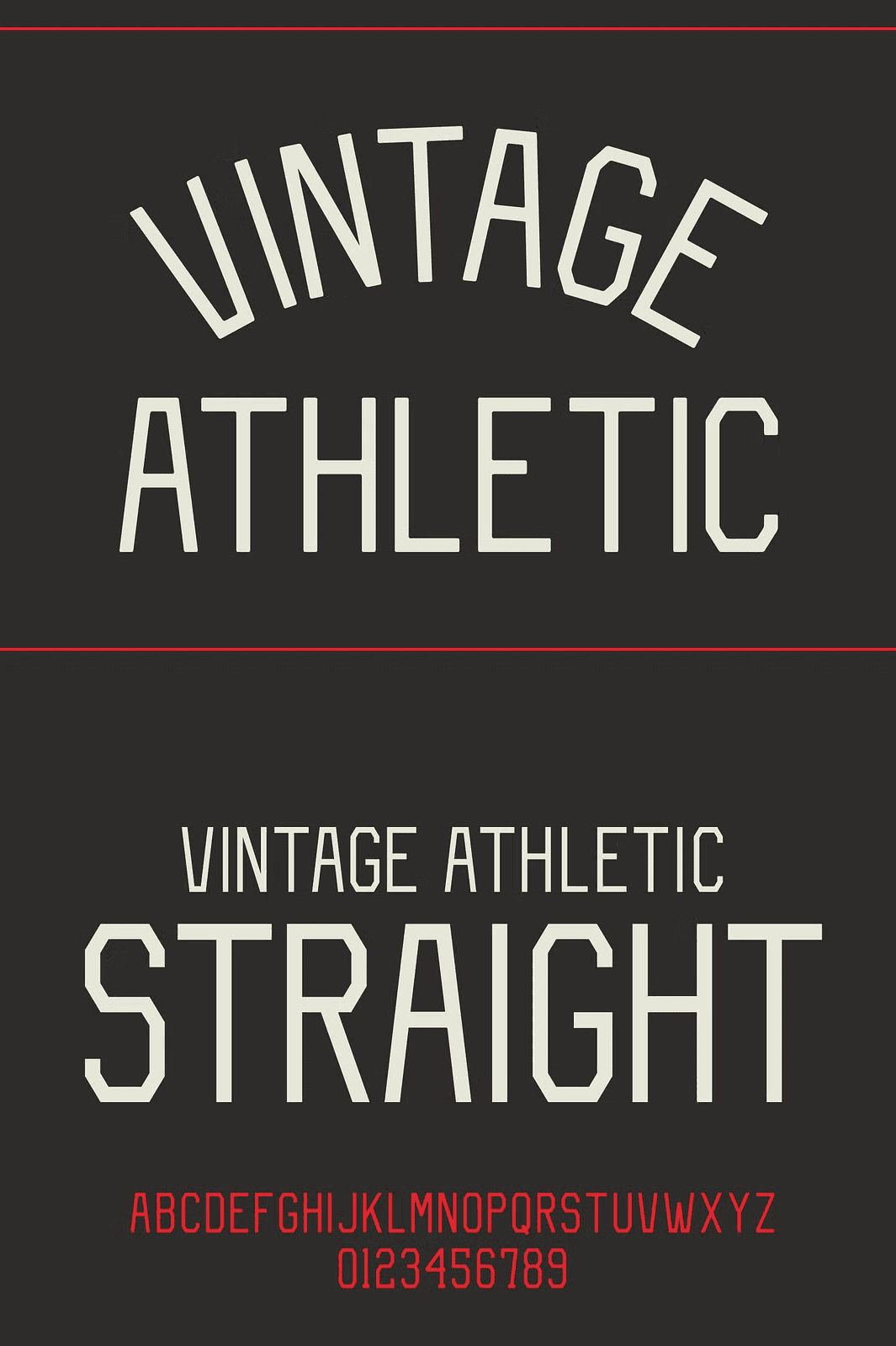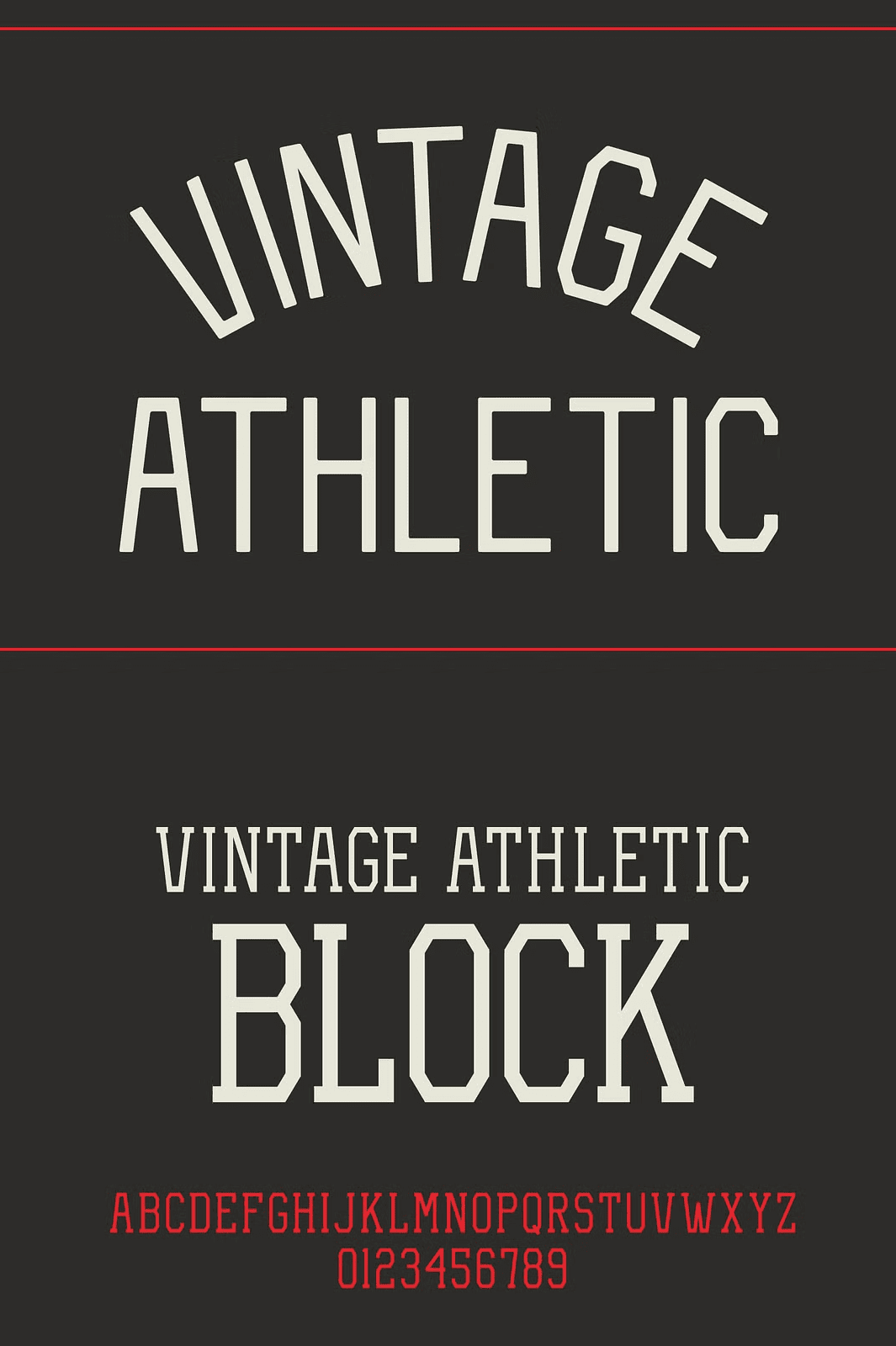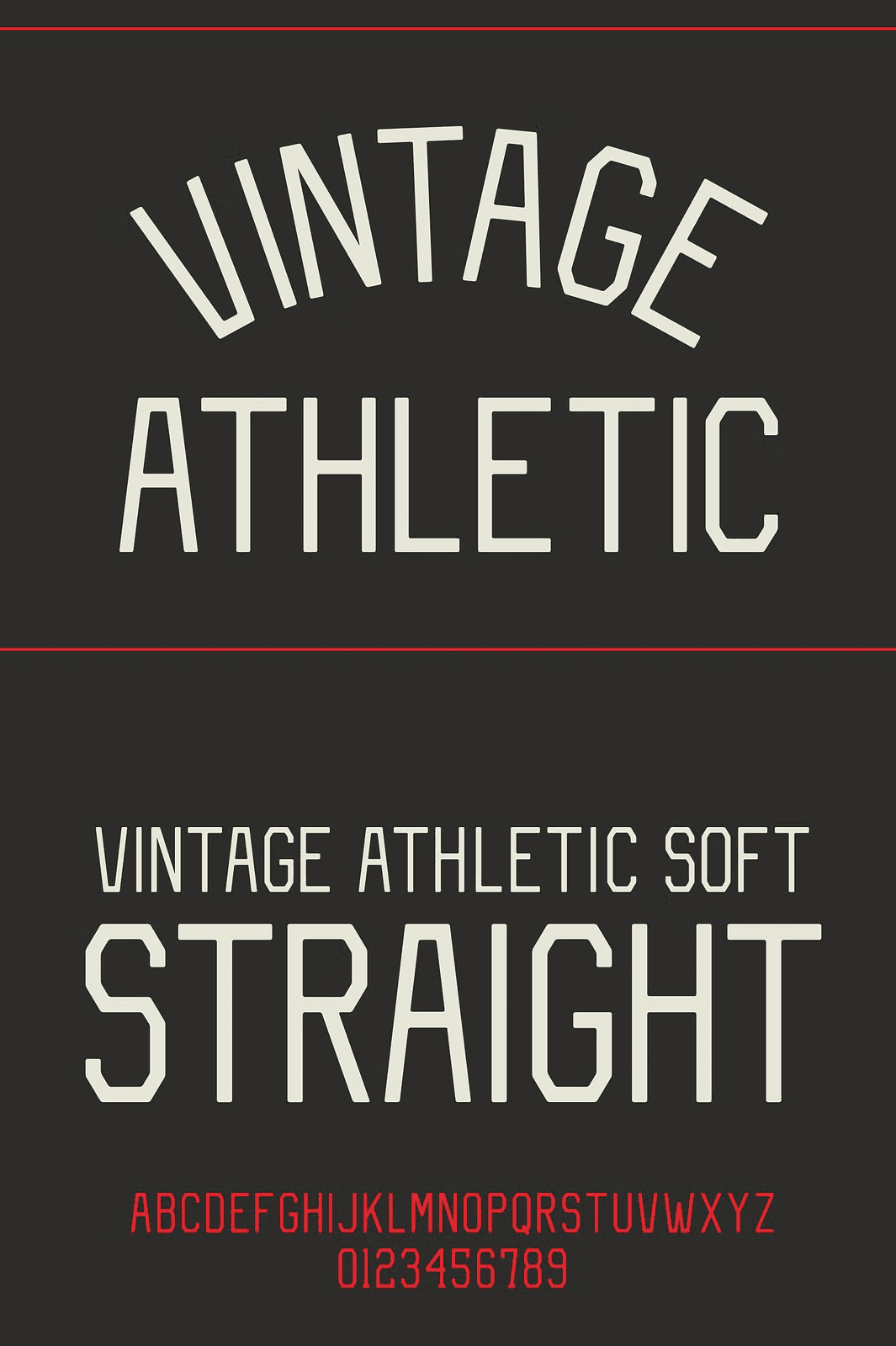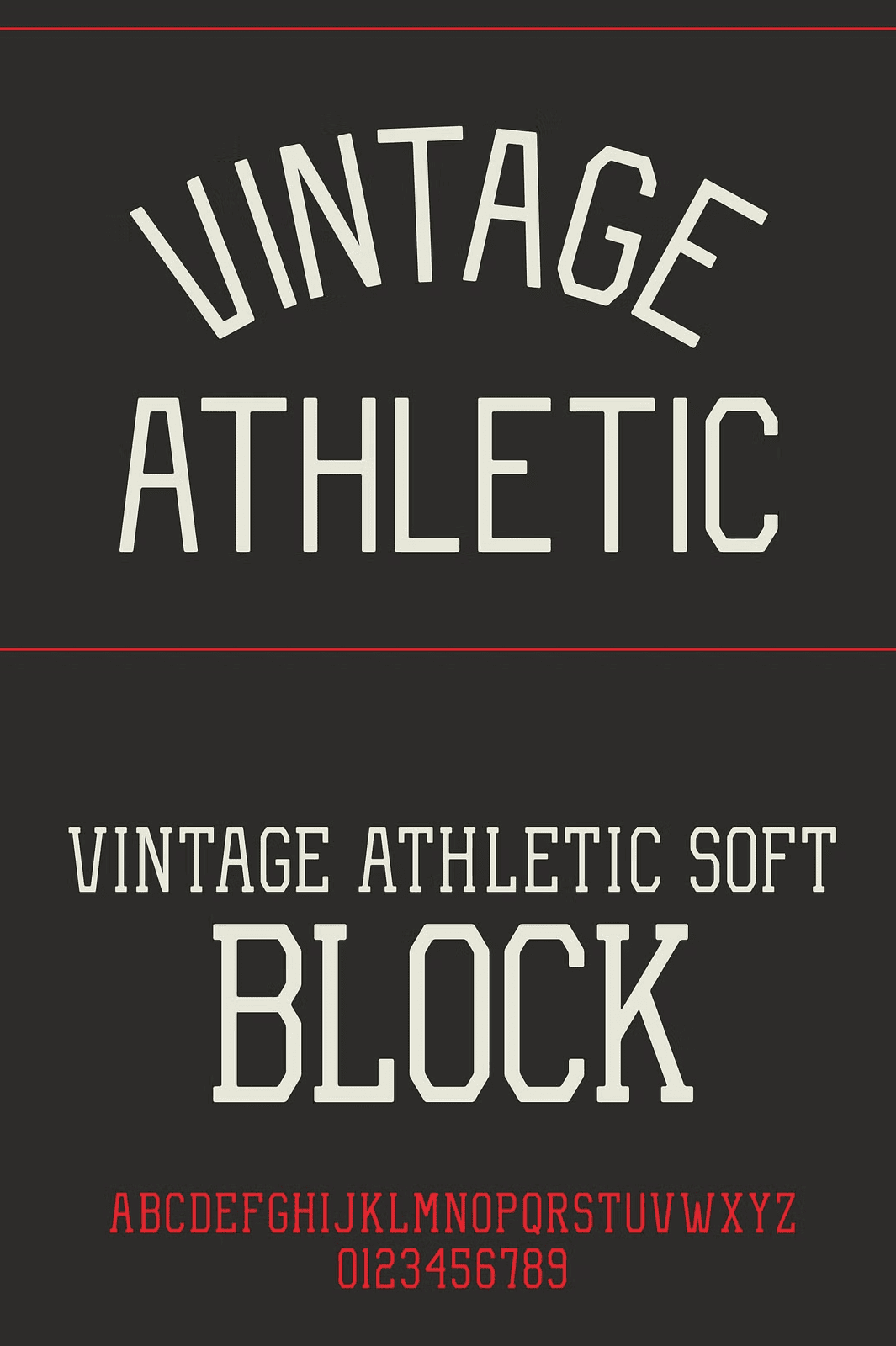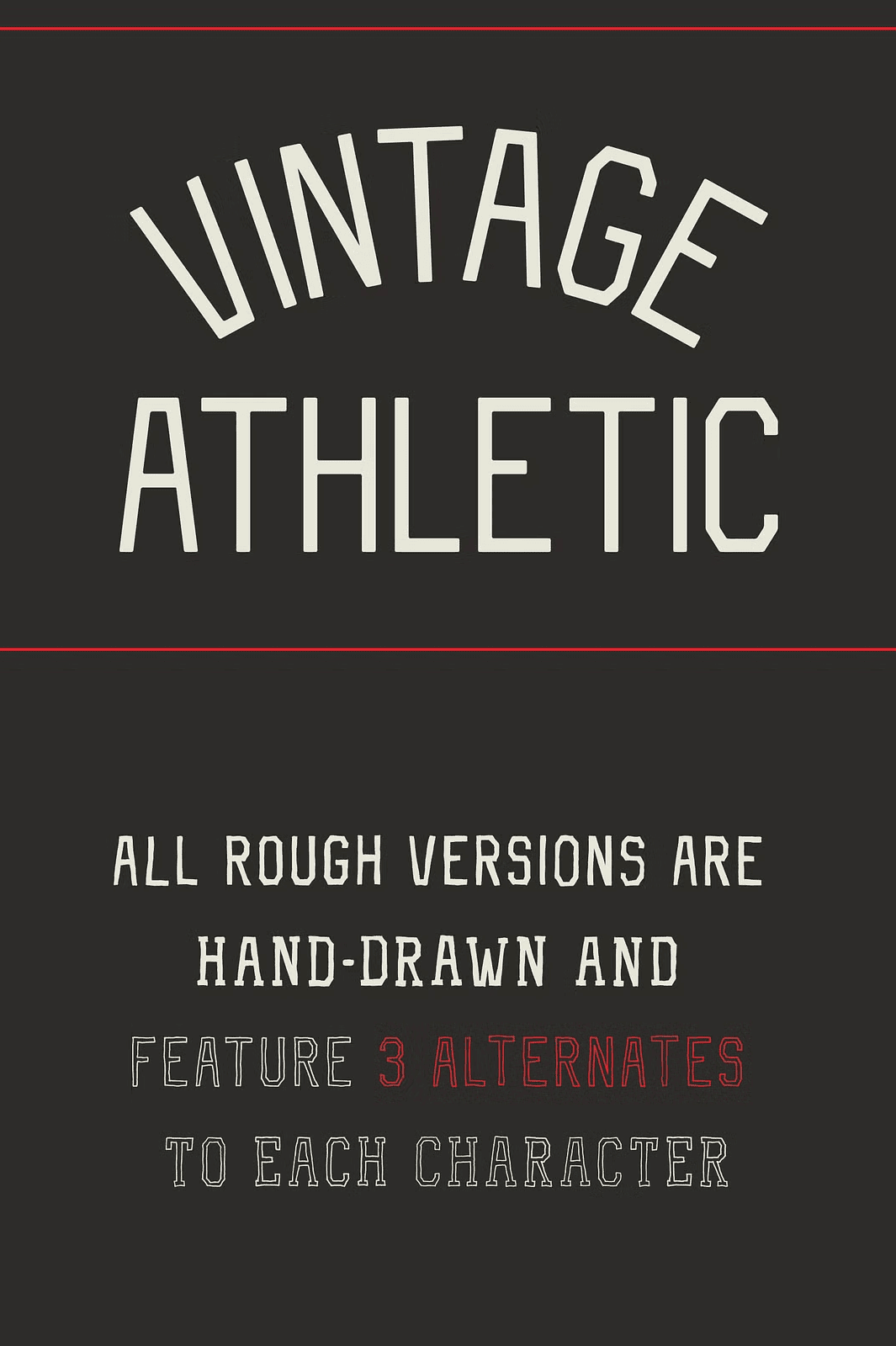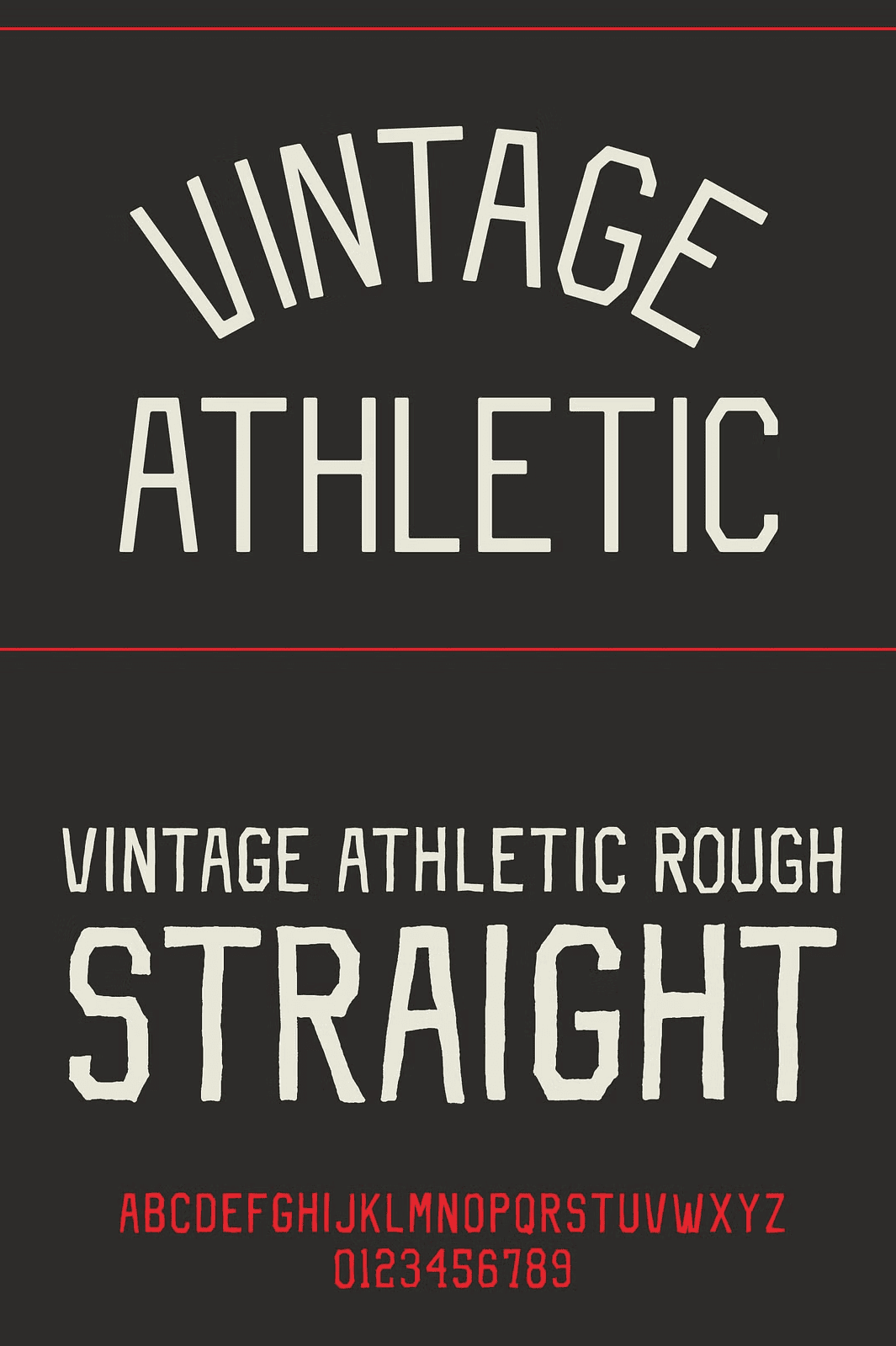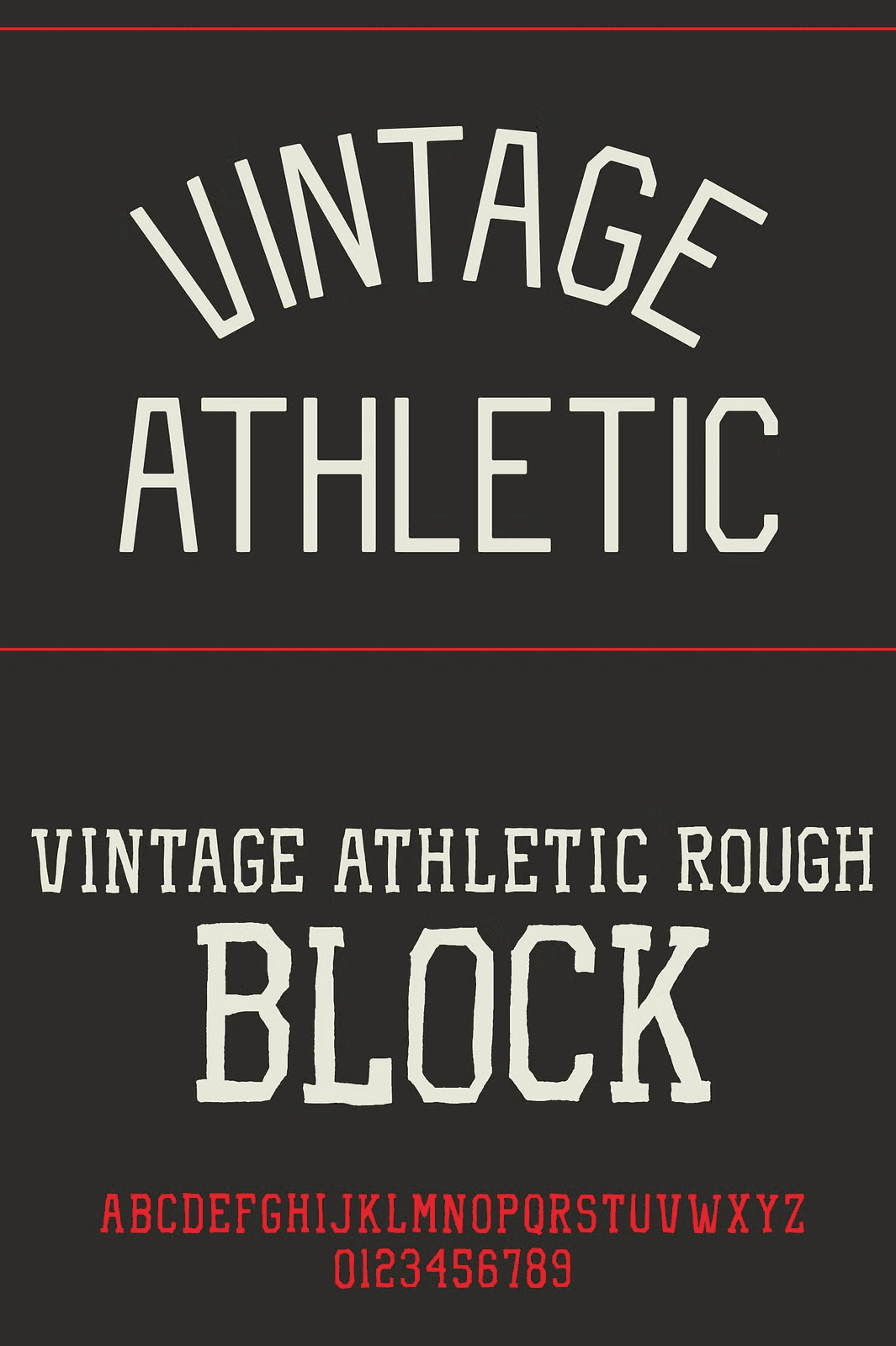
Vintage Athletic – Block Typeface
Unleash the raw energy of bygone eras with Vintage Athletic Typeface—a dynamic, hand-drawn font family engineered for creators who demand authenticity, strength, and visual impact. This comprehensive typeface delivers 8 distinct fonts that work in perfect harmony, giving you endless options to craft bold, nostalgic, and powerful athletic designs. Whether you’re designing for sports branding, vintage posters, retro logos, or lifestyle campaigns, Vintage Athletic delivers the grit, character, and personality of true classic sport typography.
Eight Fonts, Infinite Creative Possibilities
At the heart of this typeface family are four foundational styles, each available in two unique variations—**Straight** and **Block**—and extended further into **Soft**, **Rough**, and **Outline** versions. This layered structure transforms a simple font into a creative powerhouse:
• Vintage Athletic Straight – Clean, sharp sans-serif styling with no serifs, ideal for clarity and modern retro contrast.
• Vintage Athletic Block – The serif complement, adding strong visual weight and classic print-style authority.
• Vintage Athletic Soft Straight – A gentler, more refined version with subtle curves and softened edges for expressive elegance.
• Vintage Athletic Soft Block – The soft serif version, perfect for campaigns that balance tradition and approachability.
• Vintage Athletic Rough Straight – Hand-drawn imperfections give this version unmatched texture and authenticity.
• Vintage Athletic Rough Block – Rough serifs and layered strokes amplify the vintage, hand-stamped feel.
• Vintage Athletic Rough Outline Straight – A bold, open-line version for high-impact silhouettes and poster designs.
• Vintage Athletic Rough Outline Block – The most dramatic option, combining roughness with strong outline presence for maximum visual punch.
Each ‘Rough’ version includes three unique character variants per letter, meaning no two text blocks will look identical unless you choose otherwise. This feature gives you full control over randomness, texture, and artistic expression—essential for stand-out branding and editorial work.
Designed for Professional Workflow and Real-World Use
Supports multilingual scripts, including Latin, Cyrillic, and Greek, so you can create campaigns for global audiences without compromise. Whether you’re designing a basketball jersey logo, a boxing tournament poster, a vintage gym branding kit, or a retro fashion label, Vintage Athletic delivers consistent, stunning results at every scale—from small badges to giant banners.
Elevate Your Brand with Authentic Retro Energy
This font isn’t just a tool—it’s a mindset. Vintage Athletic Typeface brings the spirit of 20th-century sports posters to your digital workspace. Use it to define a brand’s identity with confidence and nostalgia. Ideal for:
• Sports team logos with vintage flair
• Retro athletic apparel and merch branding
• Event posters for marathons, tournaments, and boxing matches
• Streetwear and urban fashion design
• Podcast or YouTube channel branding with a bold, nostalgic edge
• Lifestyle magazine covers with vintage authenticity
• Business cards, flyers, and invitations for sports clubs or events
Built for Modern Creativity, Inspired by Classic Design
Stop Designing With Generic Fonts. Start Creating With Character.
Why settle for flat, mass-produced typography when you can command attention with hand-crafted, soulful type? Vintage Athletic Typeface gives your projects the depth, energy, and emotional resonance that generic fonts can’t replicate. It’s not just a font—it’s a statement. A legacy. A brand’s voice, shaped by history.
Transform your next design from ordinary to unforgettable. Build with purpose. Design with power. Bring the past to life, one bold letter at a time.